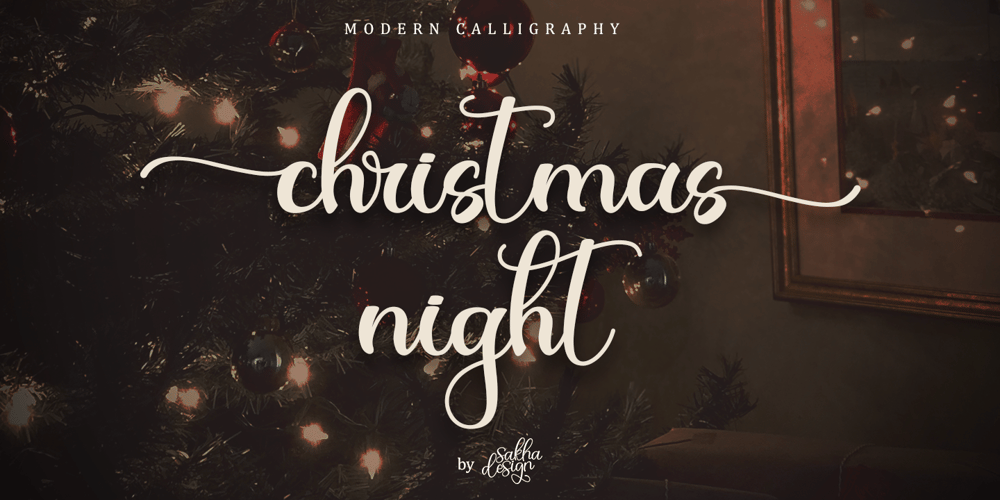
Christmas Night Font Family was designed by Alif Ryan Zulfikar and published by Sakha Design. Christmas Night contains 1 styles and family package options. Christmas Night is a beautiful, rich, and elegant handwritten font. It is ideal for holiday-themed greeting cards and for any crafting project that requires a romantic touch. This font is PUA encoded which means you can access all of the glyphs and swashes.